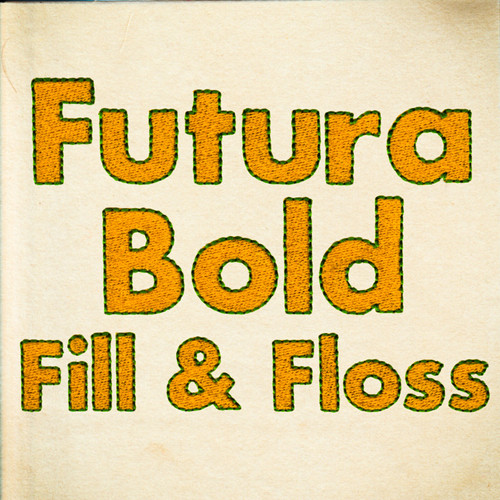
797 Futura Bold Fill & Floss Font
797 Futura Bold Fill & Floss Font comes in1", 1.5", 2", 2.5", 3", 3.5" And 4" heights based on the capital "A". All sizes included in purchase price. Features uppercase letters, lowercase letters, numbers and 13 punctuation marks as show in the character chart on this page. All characters finished in Fill Stitch with 2nd color Floss Stitch outlines and accent parts. Floss Stitch stitches out on all embroidery machine using standard embroidery thread. (release date: 11/7/24)